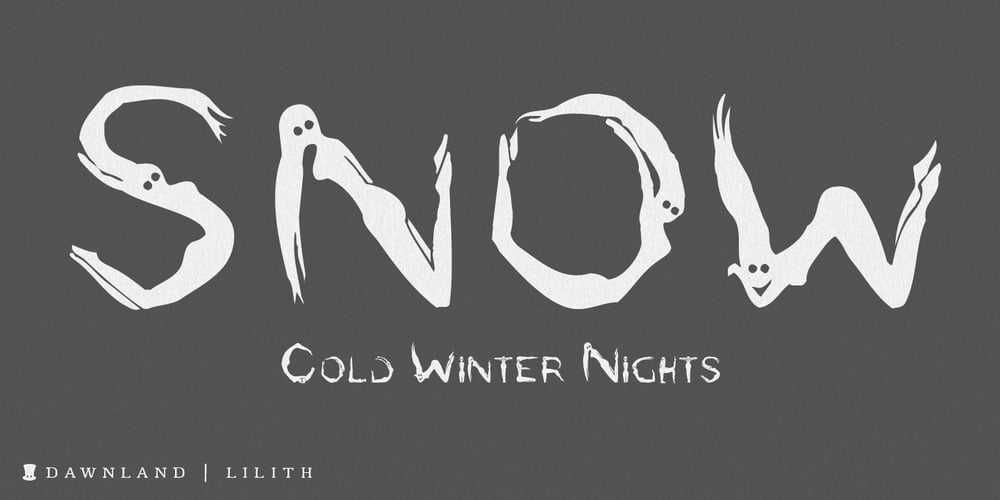
Lilith Font Family was designed by Daniel Viberg and published by Dawnland. Lilith contains 1 styles and family package options. Hand drawn shadow entities from the dark corners of Dawnland. Lilith X is ideal for: Initial characters – give your text a unparalleled facelift! Headlines – create a unique look for your posters, event graphics, book covers & music/media/game packaging. Preamble – reanimate the introduction… The main focus and usage of Lilith X are initial characters or headlines for posters, event graphics and music/media/game packaging. The bread text on the gallery images is written in Aeterna. Lilith X contain uppercase and small caps letters A-Z + swedish characters Å Ä Ö.